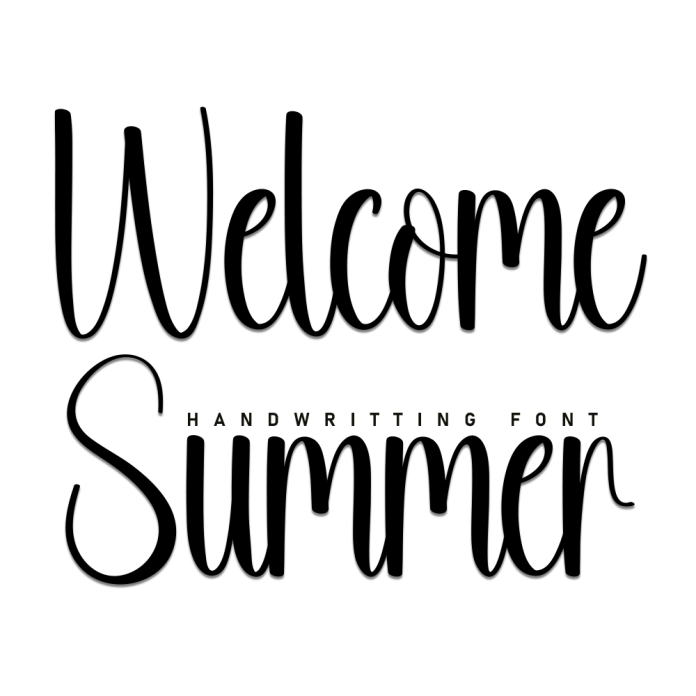
Welcome Summer Font
Our custom artwork will satisfy you with the latest styles, perfect for wall displays, wedding invitations, social media post logos,
Advertising, product packaging, product design, labels, photography, watermarks, invitations, stationery,
and any project that requires good handwriting.